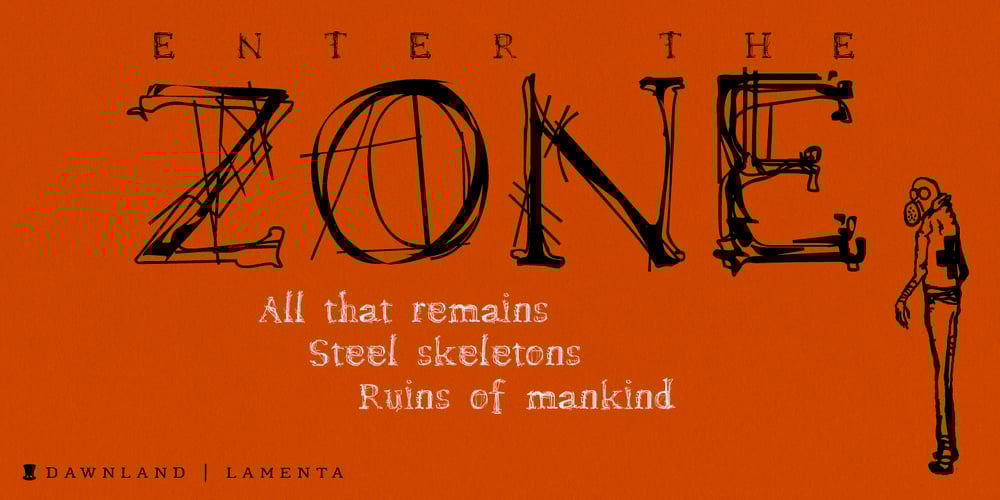
Lamenta Font Family was designed by Daniel Viberg and published by Dawnland. Lamenta contains 1 styles and family package options. All that remains from this once so proud and glorious antiqua are steel skeletons. Destroyed. Distorted. Ruins. The main focus and usage of LamentaX are headlines, posters for event graphics and music/media/game packaging. Lamenta X was revised 2012 and now hold a full character set of basic english/latin letters and west european diacritics!